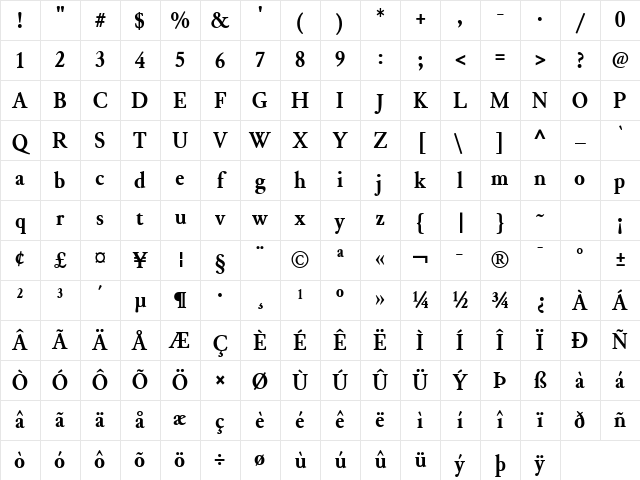
JuniusX SemiCondensed Bold Free Font
JuniusX SemiCondensed Bold
Style: SemiCondensed Bold
Foundry: Briery Creek Software
Designer: Peter S. Baker
Design Context for JuniusX
JuniusX is a composed and adaptable typeface that performs quietly and consistently across a wide range of design contexts. Its bold stroke weight gives it real presence on the page. Its narrow stance lets it pack a punch even in space-constrained designs.